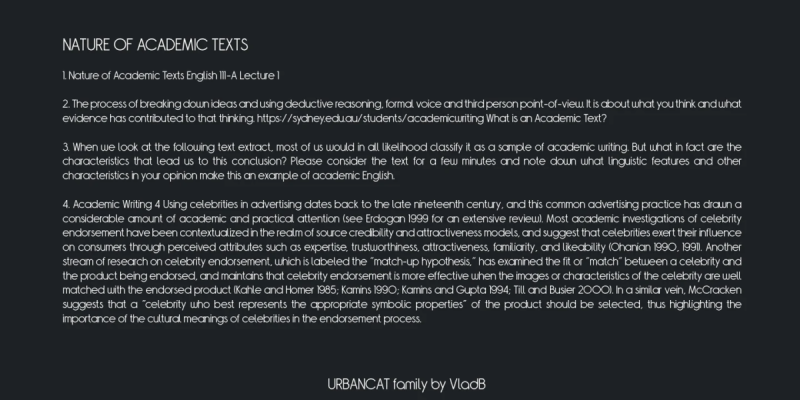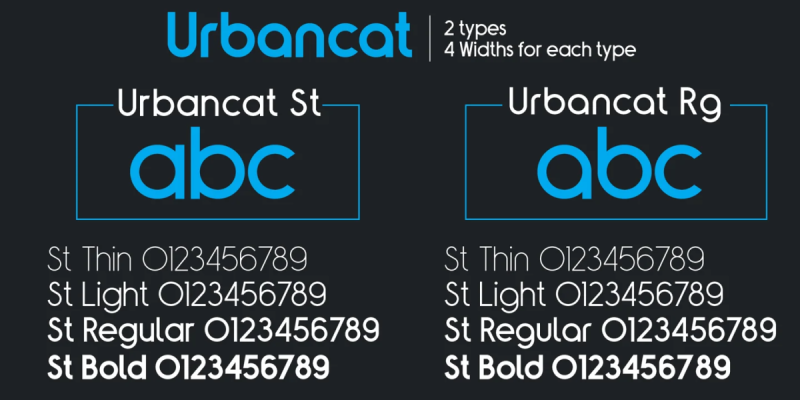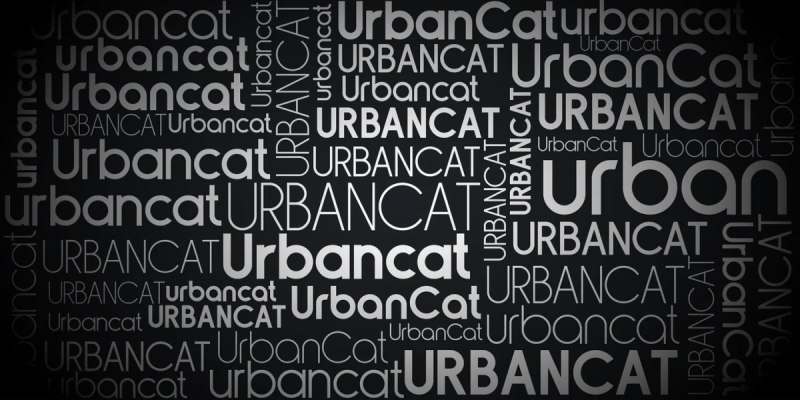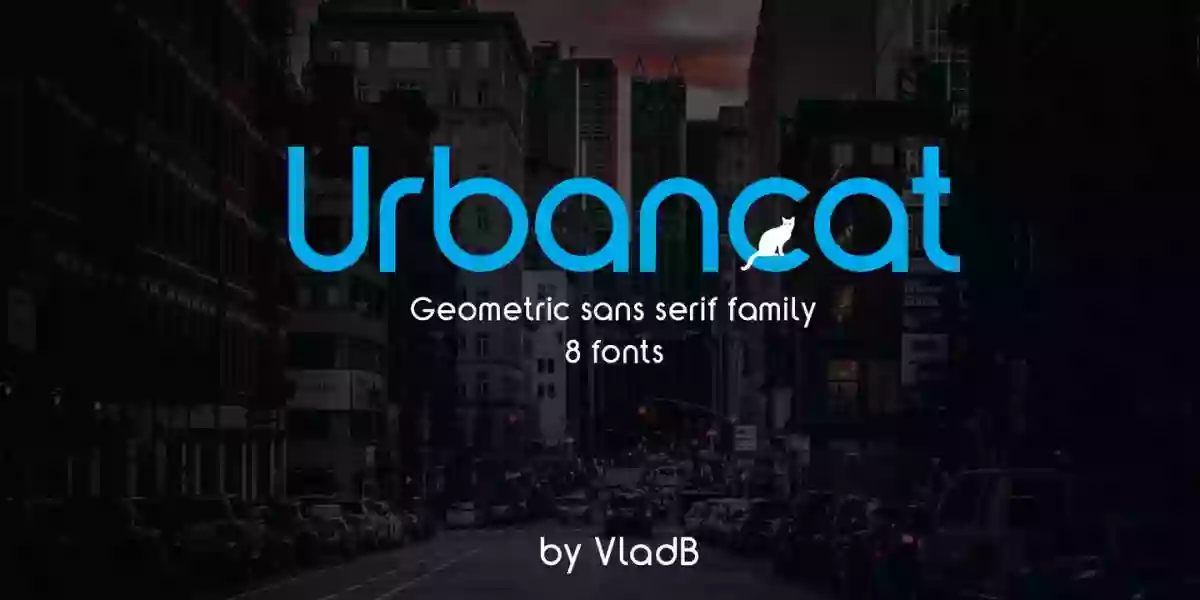
Urbancat Font Family
Urbancat is a modern sans serif geometric font, includes upper and lower case characters, Latin, Cyrillic, Latin Eastern Europe, Turkish, Baltic and other. The Urbancat family consists of 8 fonts, divided into 4 subgroups (according to the type of style – St, Rg), and have the 4 types of thickness in each subgroup. Urbancat fonts will be useful in developing a brand, creating posters and other graphic products, and for word processing.
Urbancat Font Family stays legible at small sizes, which makes it a strong choice for navigation, buttons and dashboards in web design and app interfaces.
Clean sans serifs like Urbancat Font Family are the default language of SaaS, fintech and product branding.
Urbancat Font Family is a Sans Serif Fonts typeface tagged Branding, Geometric, Modern, Poster. It works well for headlines, logos, posters, social media graphics and branding projects that need a distinctive sans serif fonts look.